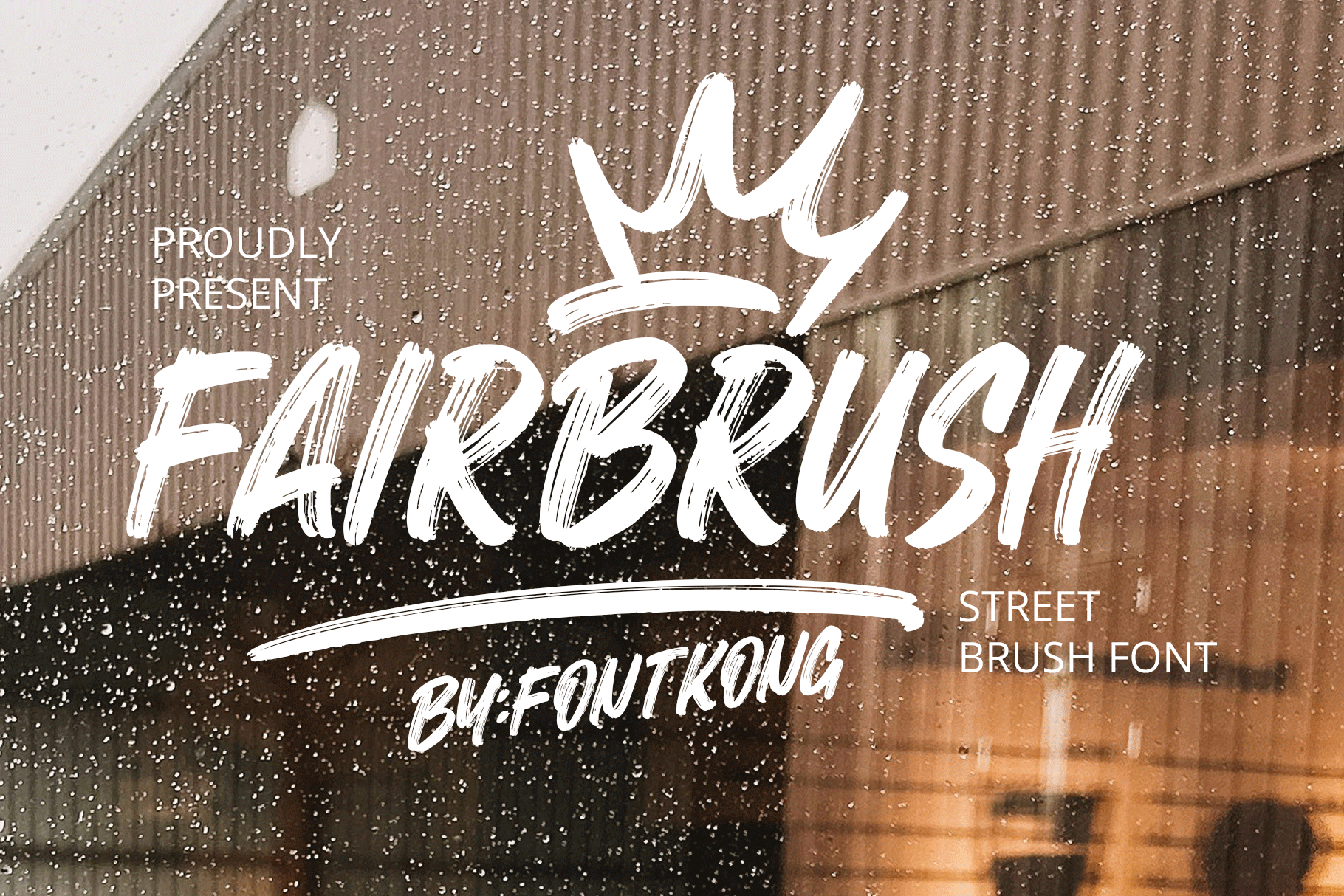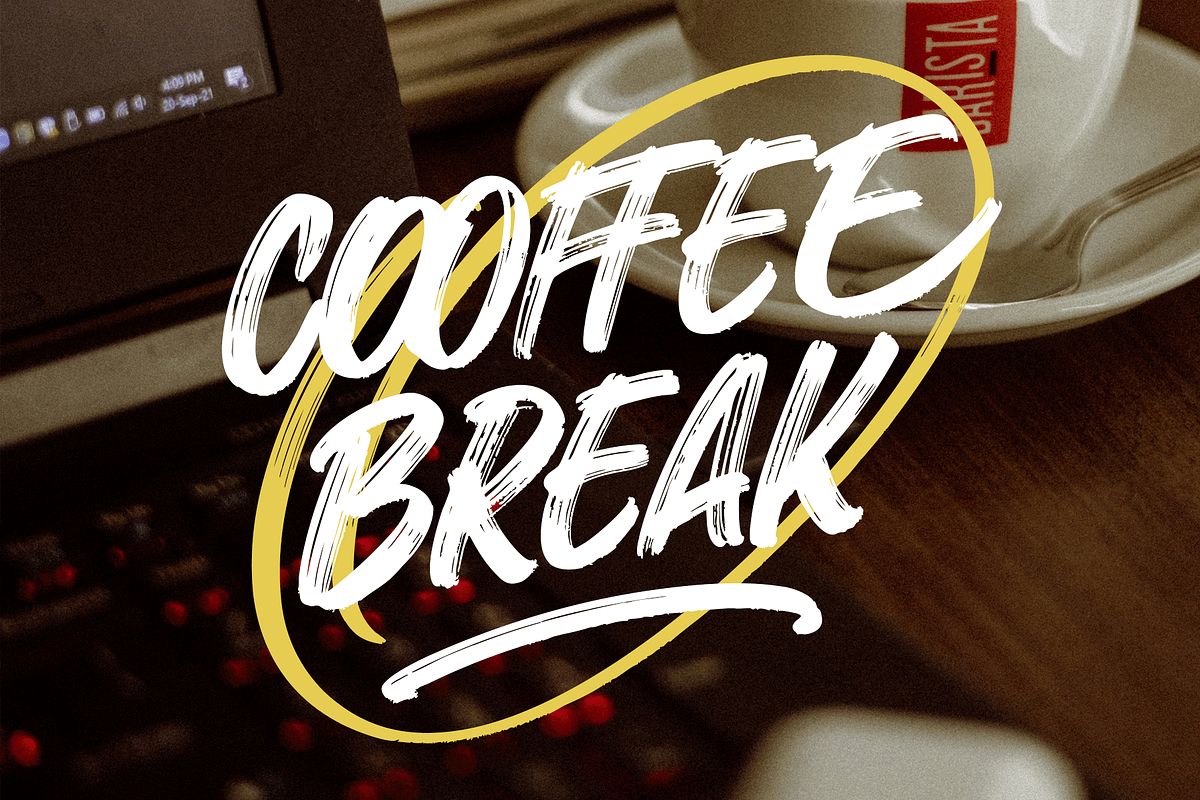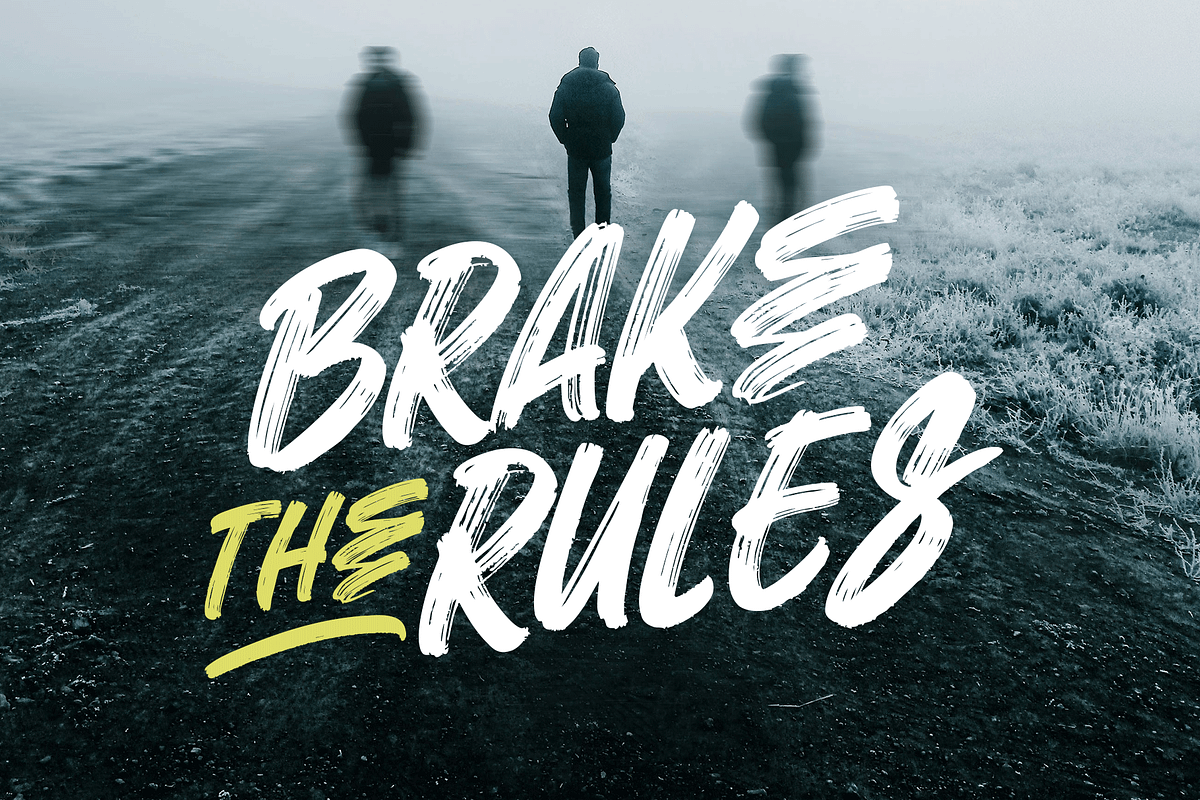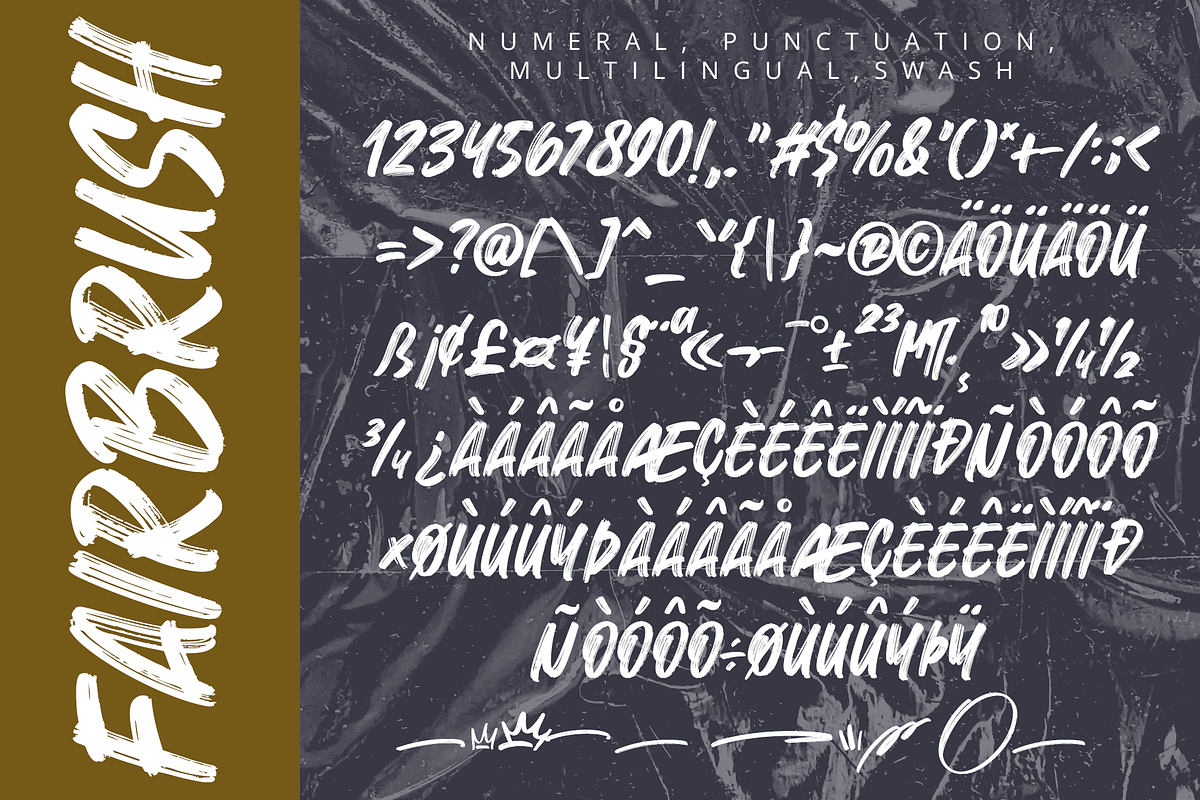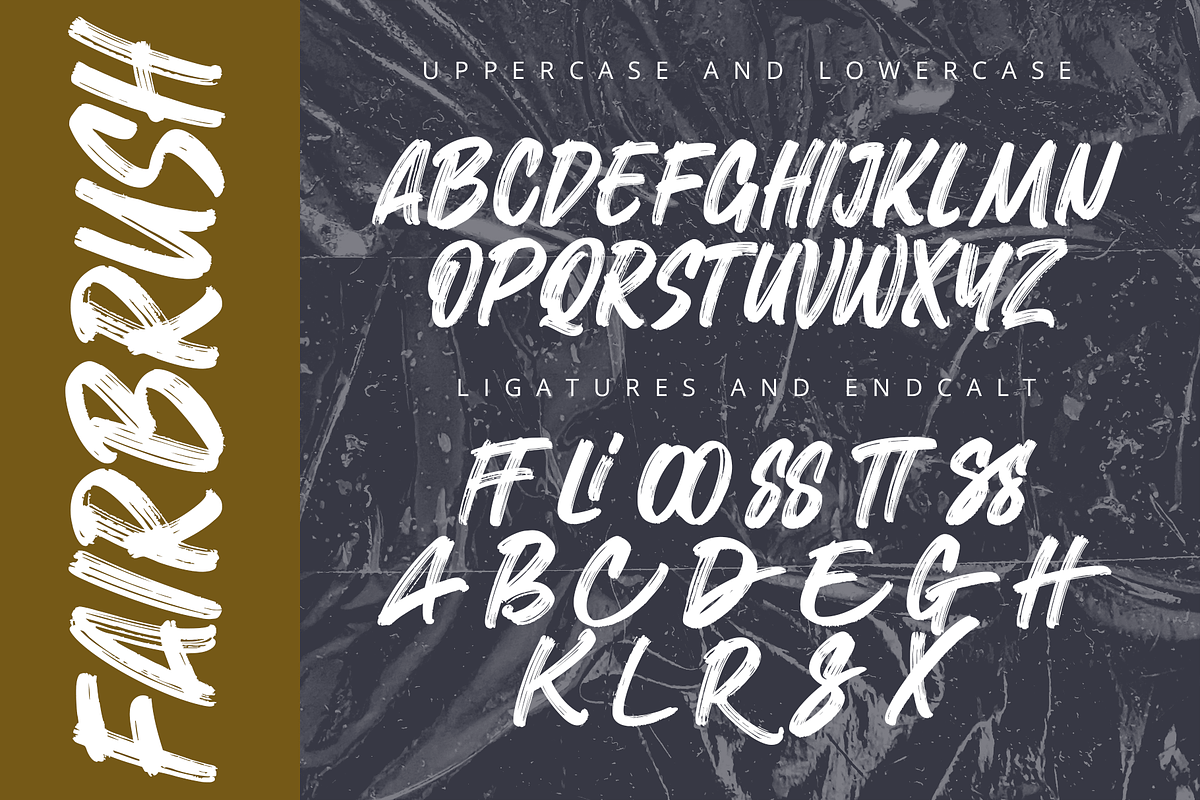
Fairbrush – Street Brush Font
Introducing Fairbrush, a bold street brush font infused with raw energy and urban flair. Handcrafted with dynamic brush strokes, Fairbrush brings the gritty charm of graffiti and street art into your design projects, making it ideal for creators who want to make a statement.
Perfect for posters, logos, apparel, album covers, social media graphics, and branding that needs attitude, Fairbrush combines edgy aesthetics with readability. Its handcrafted texture and fluid motion capture the essence of street culture, offering your work a bold and rebellious personality.
Fairbrush comes complete with uppercase and lowercase letters, numbers, punctuation, and multilingual support, ensuring versatility across a variety of projects. Whether you're crafting edgy branding or eye-catching headlines, Fairbrush delivers powerful visual impact.